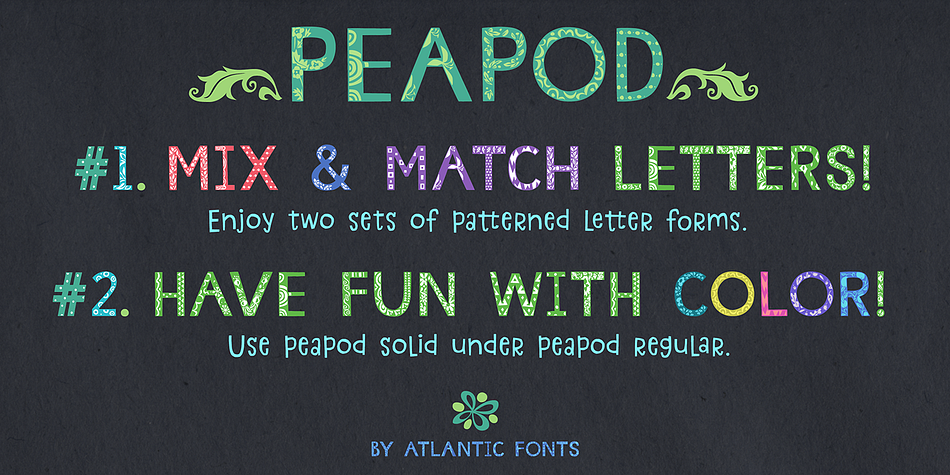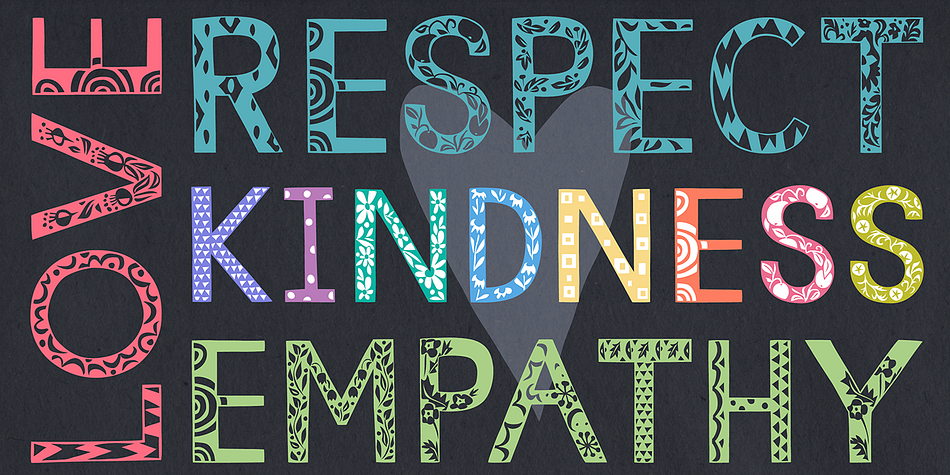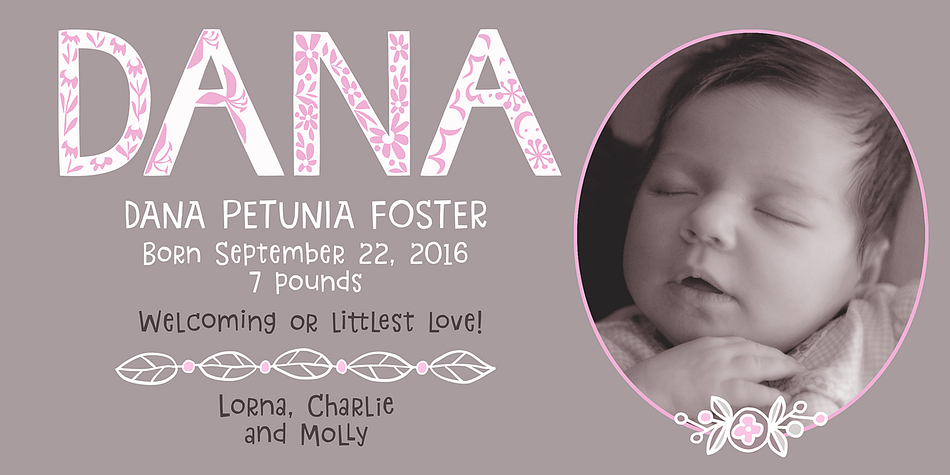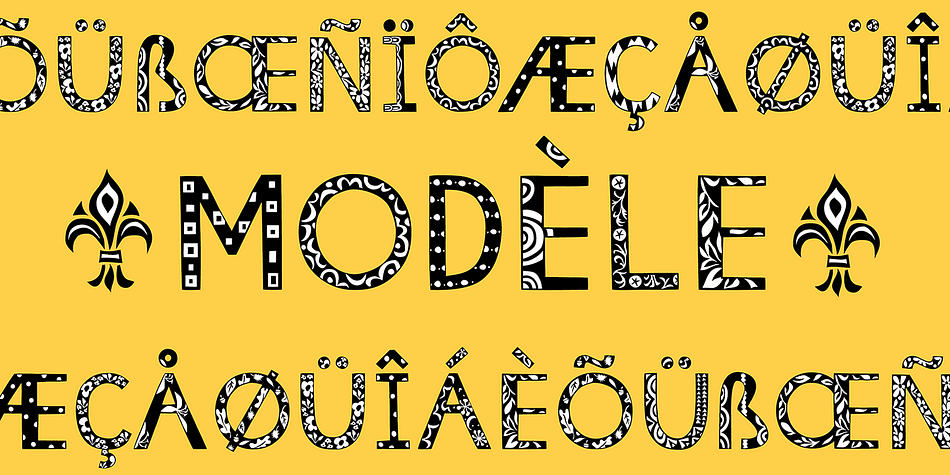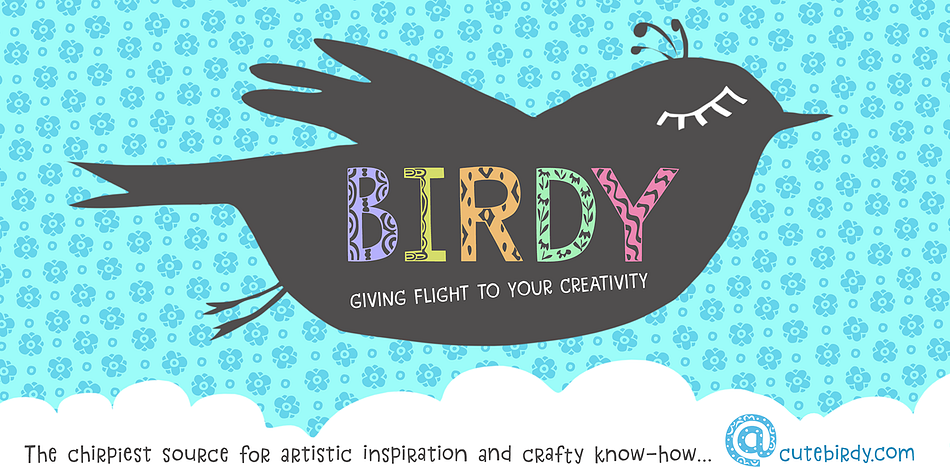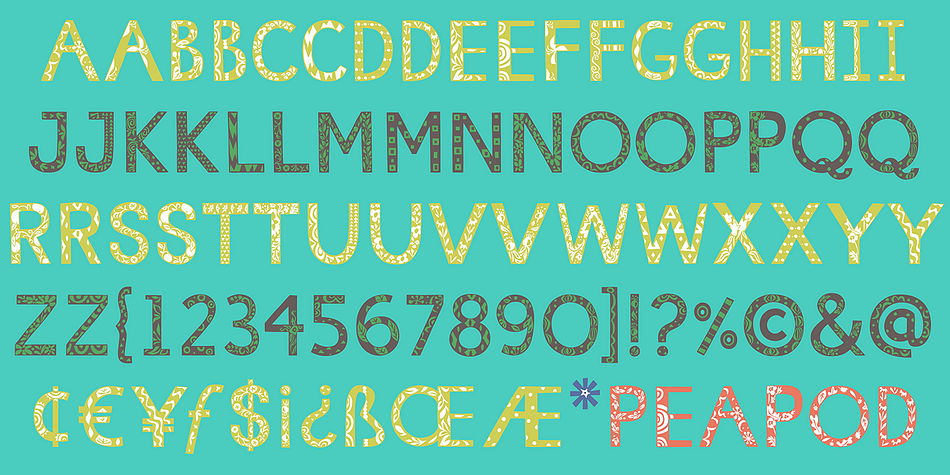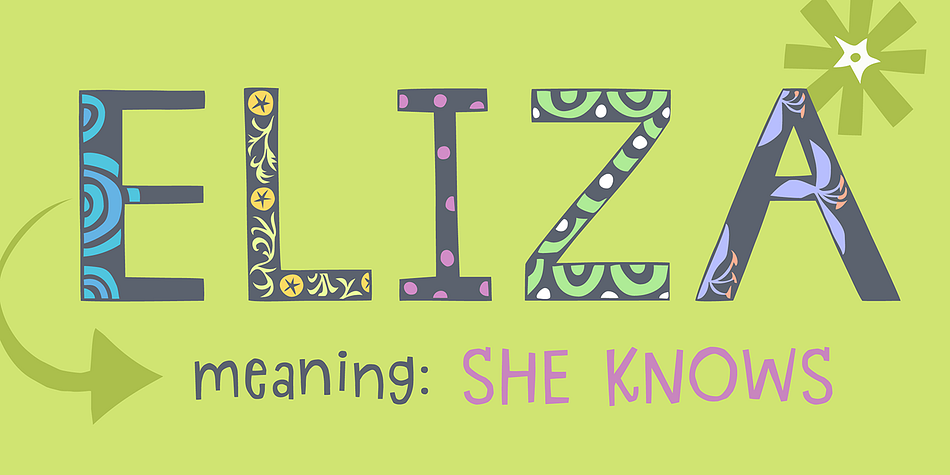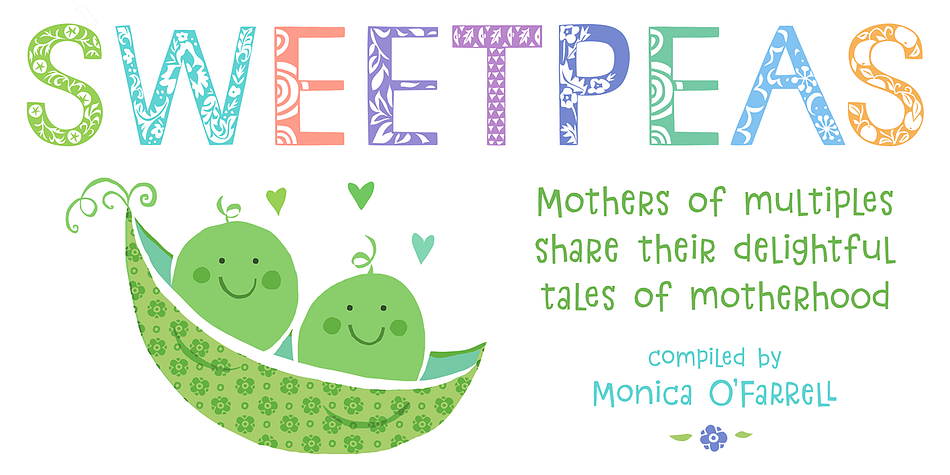
Designed by Amy Dietrich, Peapod is a display sans font family. This typeface has two styles and was published by Atlantic Fonts.
Peapod Regular is all-cap and all about hand-drawn patterns. Each letter has two pattern options easily available in upper/lower places and is designed to be used with Peapod Solid for color changing ease. Peapod is inspired by the publishing tradition of an ornate initial at the beginning of a fairytale, but why resist the fun of putting pattern everywhere…
Posters also feature Atlantic Font’s Sanderling, Atlantic Doodles, Rowboat, Dinghybats and Quince Designs.